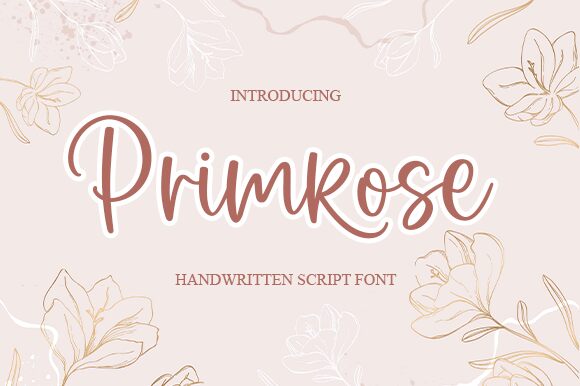
Primrose
Primrose, crafted by Graphix Line Studio, stands as a testament to the grace that handwritten fonts can bring to the table. With its semi-light weight, this font delicately threads through design spaces, infusing them with a touch of sophistication and an air of elegance.
The thoughtful inclusion of stylish alternates and ligatures expands creative horizons, making Primrose an adaptable choice for everything from wedding invitations to branding materials. Its ability to convey charm and personality while maintaining legibility positions it as an essential asset for designers aiming to impart a bespoke feel into their projects.